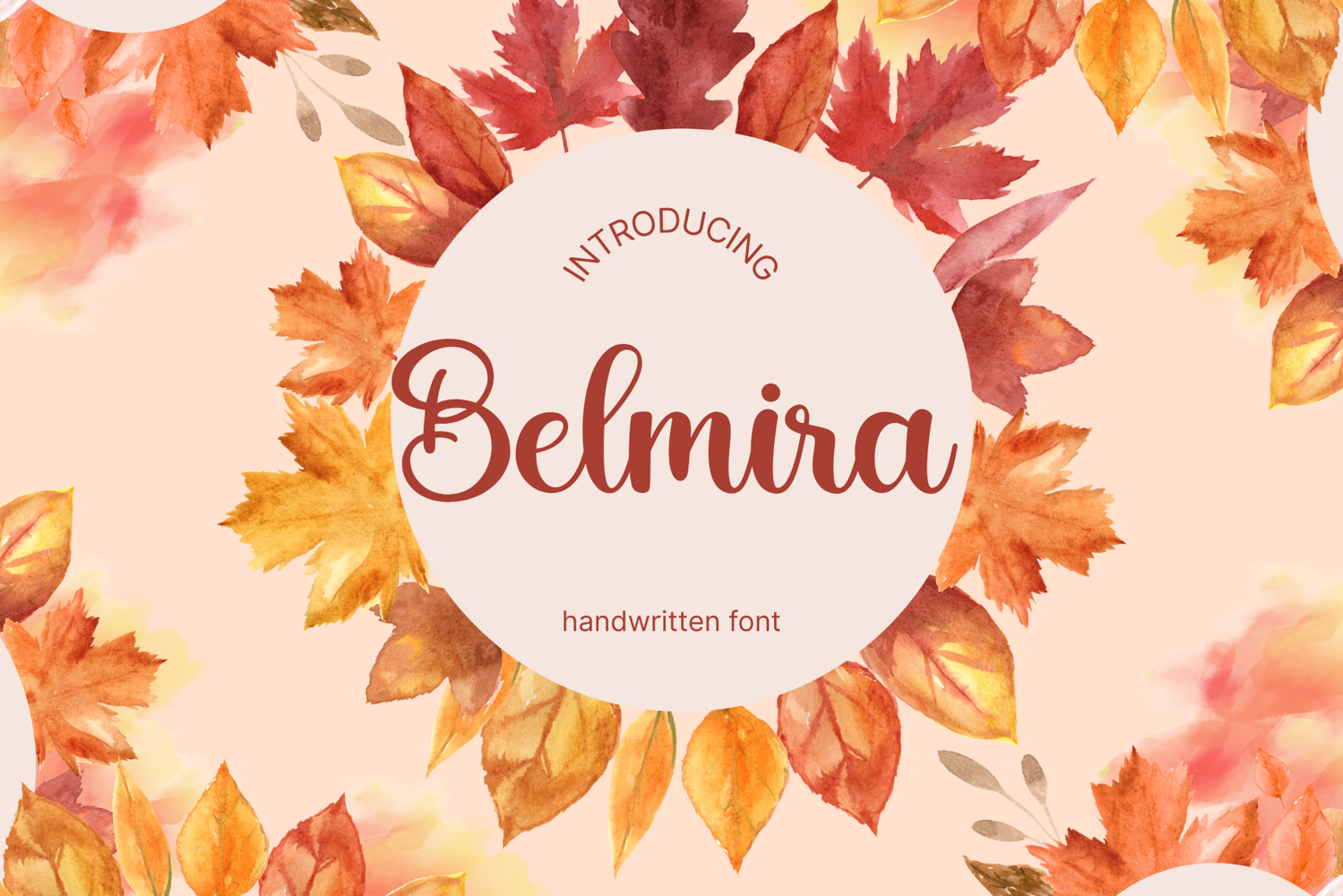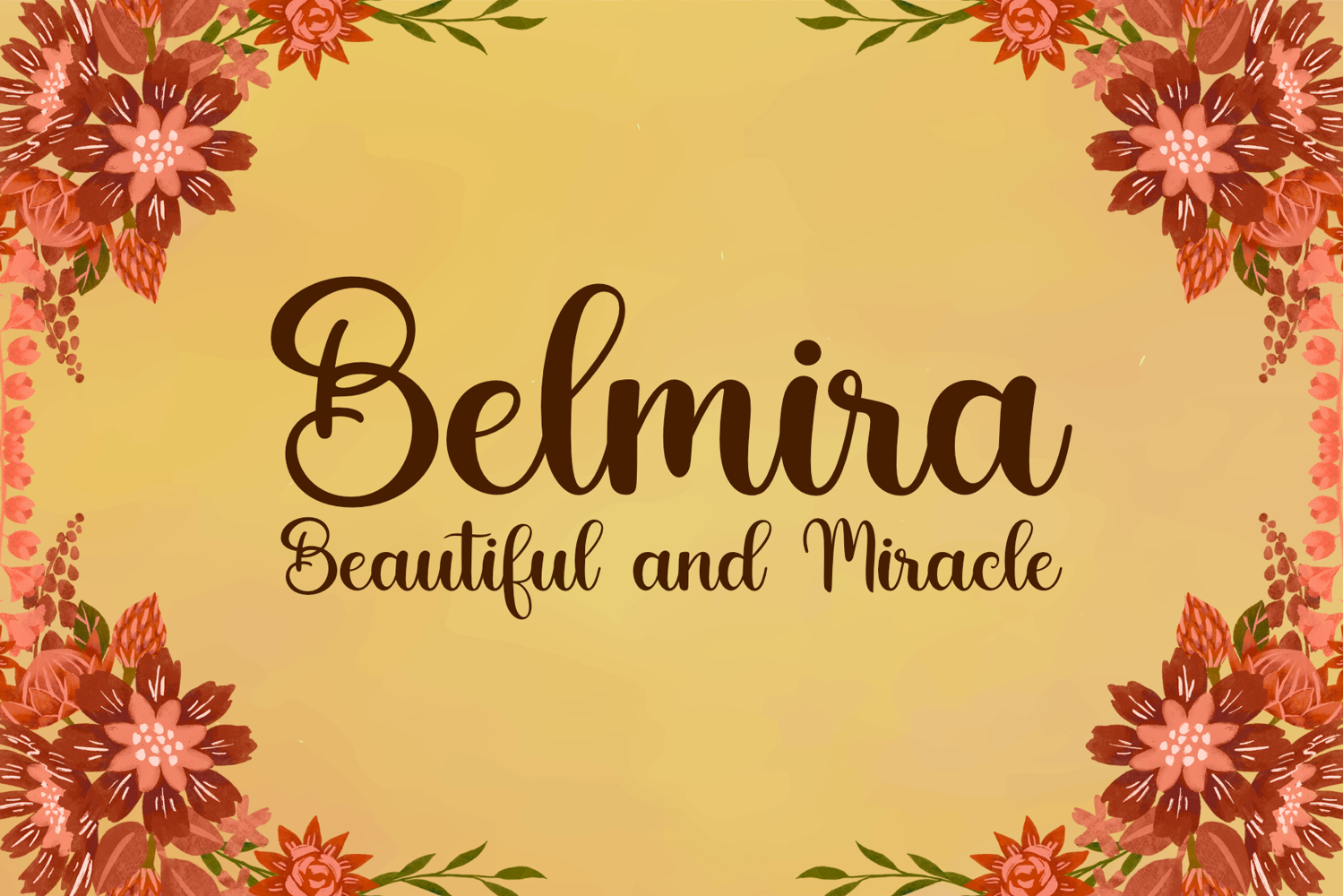
Belmira
Belmira Font is a elegant and modern script font with unique swirly characters and stylish flourishes. Perfect for adding a touch of sophistication to invitations, logos, branding, and other design projects. Its flowing and graceful style makes it stand out and adds a touch of luxury to any project.